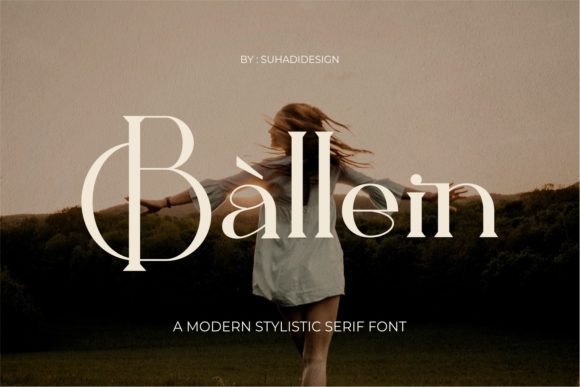
Introducing Ballein Font: The Epitome of Sophisticated Elegance for Your Creative Endeavors
In the realm of typography, few fonts can match the captivating allure of Ballein, a meticulously crafted serif font that exudes both sophistication and charm. Its fashionable touch adds a touch of modernity, making it the ideal choice for those seeking to create designs that leave a lasting impression.
With its delicate curves and graceful strokes, Ballein possesses a timeless beauty that is perfect for adding a touch of elegance to any project. Whether you're designing a luxury brand logo, crafting an unforgettable wedding invitation, or creating a stunning book cover, Ballein will elevate your work to new heights.
Dive into the world of Ballein and discover a font that is both versatile and captivating. Its carefully balanced serifs and elegant letterforms make it perfect for a wide range of design applications, from classic to contemporary. Unleash your creativity and let Ballein guide you towards designs that are both visually appealing and impactful.
Ballein is not just a font; it's an artistic expression that reflects your unique style and vision. With its ability to transform ordinary words into captivating statements, Ballein will make your designs stand out from the crowd. Embrace the power of typography and let Ballein be your creative muse.
So, why settle for ordinary when you can have extraordinary? Experience the magic of Ballein today and elevate your designs to the next level. Let your creativity flow freely as you explore the endless possibilities that await you with this remarkable font.